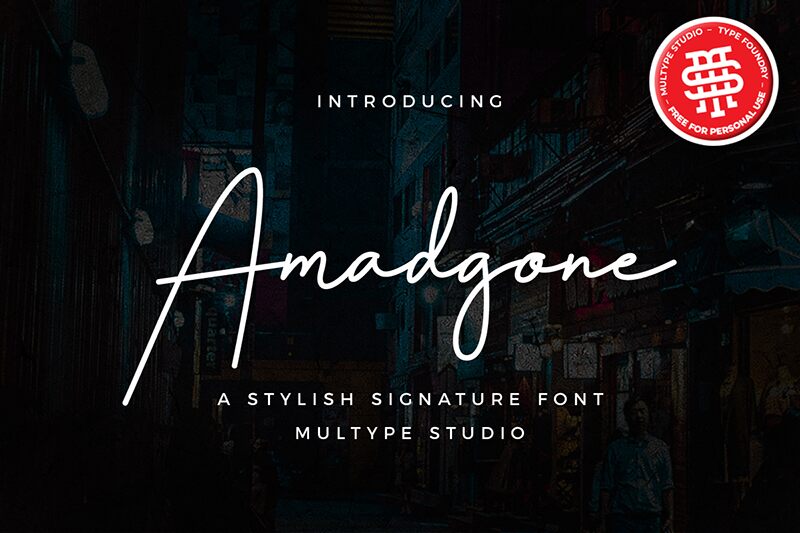
Amadgone, by Multype Studio, embodies the quintessence of a personal touch within its light, handwritten strokes. This signature-style font offers an elegant and natural aesthetic that captures the essence of stylish penmanship.
Perfect for those seeking to infuse their creative projects with a sense of authenticity and sophistication, Amadgone is versatile enough to enhance everything from branding to personal correspondence. Its delicate weight and flowing lines make it an ideal choice for designers aiming to create eye-catching visuals with a handcrafted feel.
Step into a world where each character tells a story, and let Amadgone elevate your design narrative.
Amadgone
Multype Studio"
Mulia Yanto